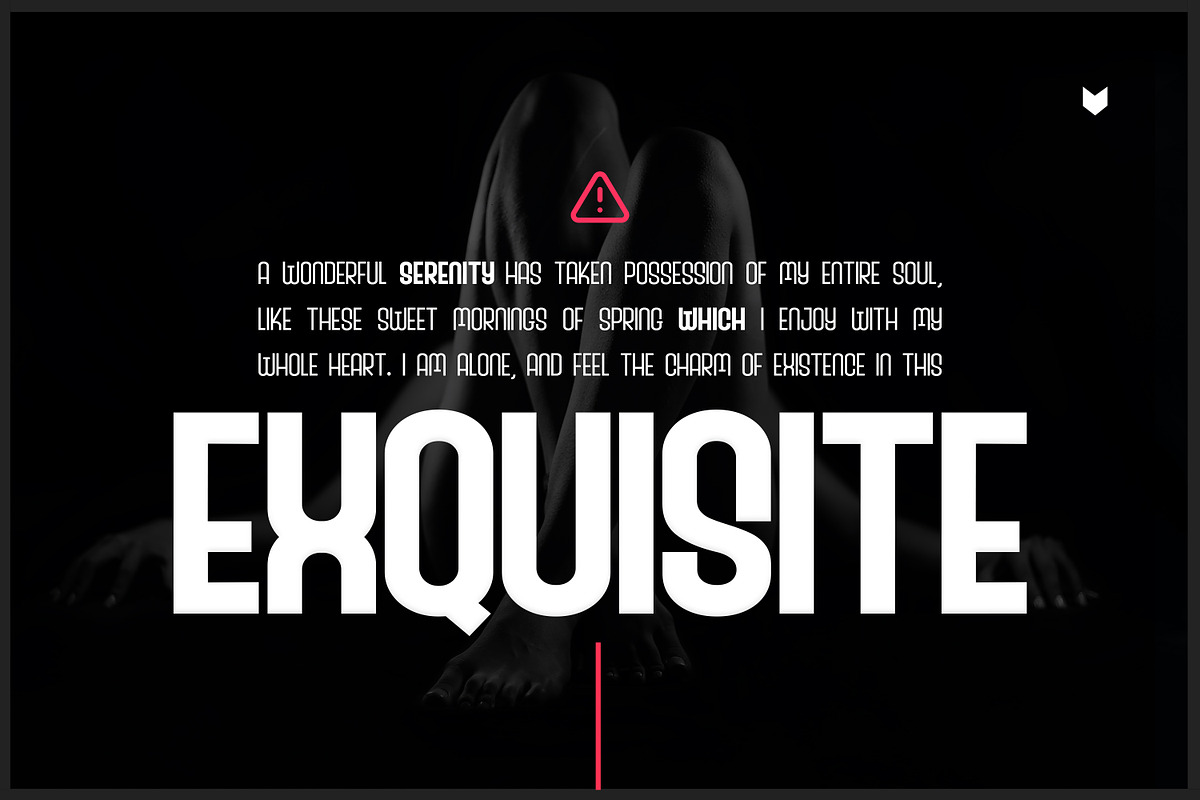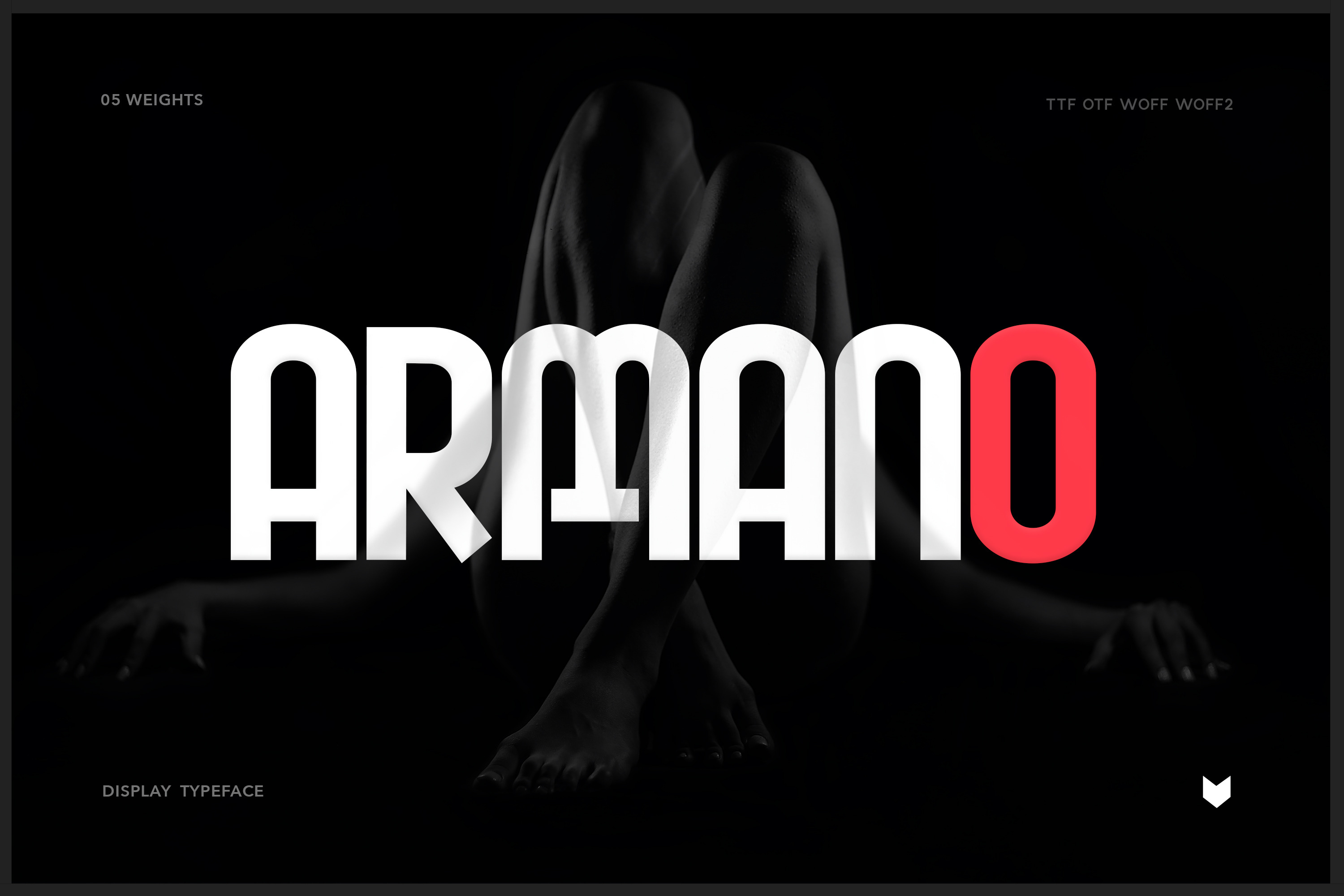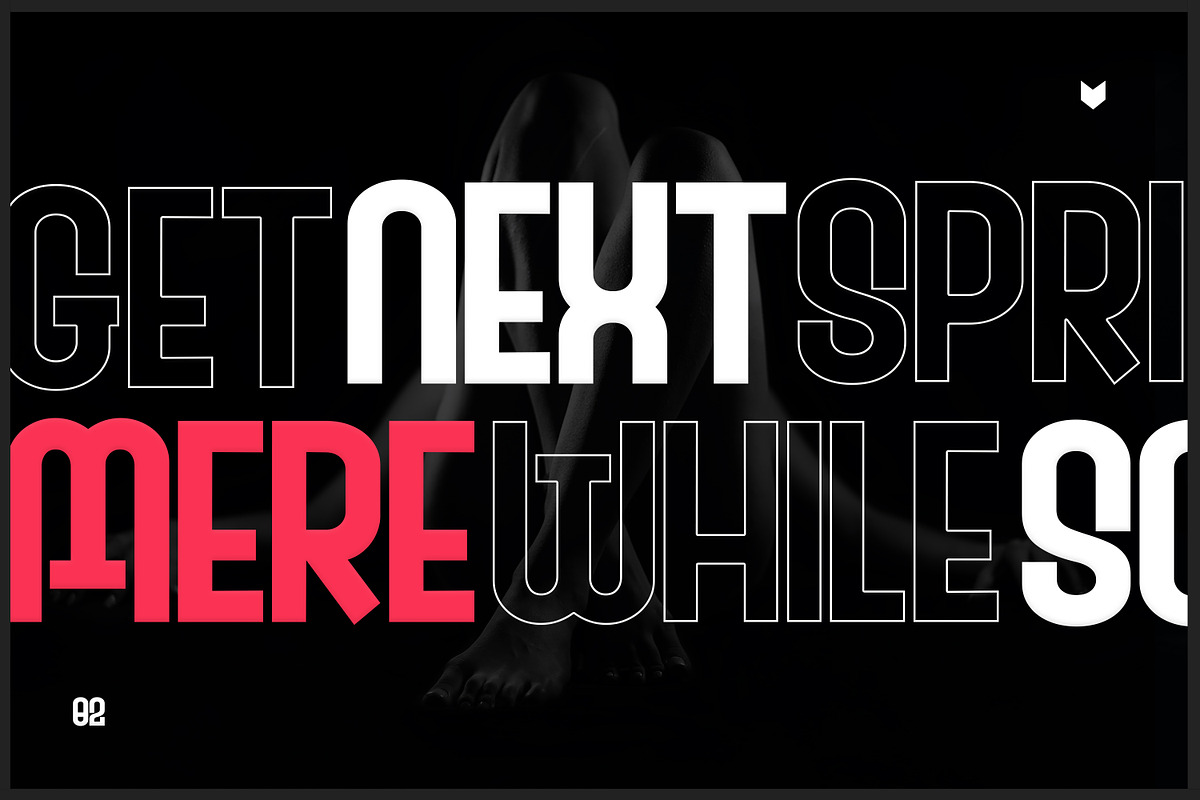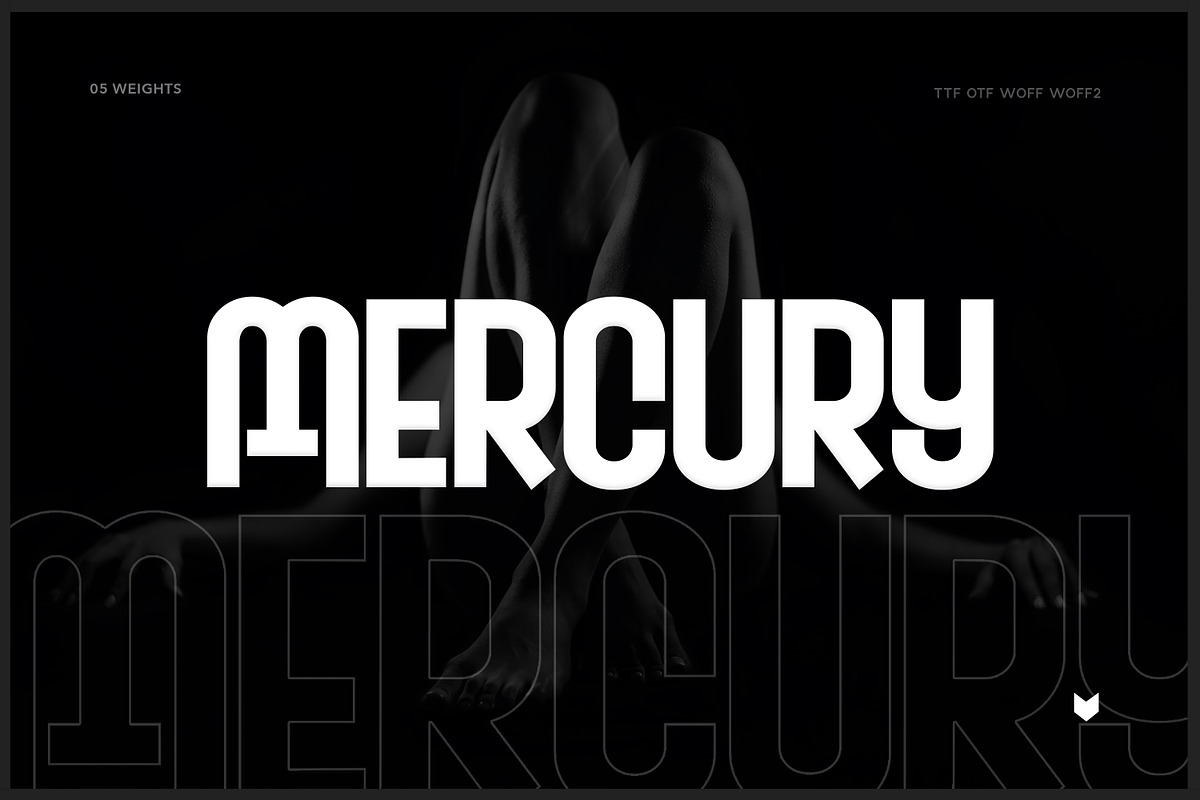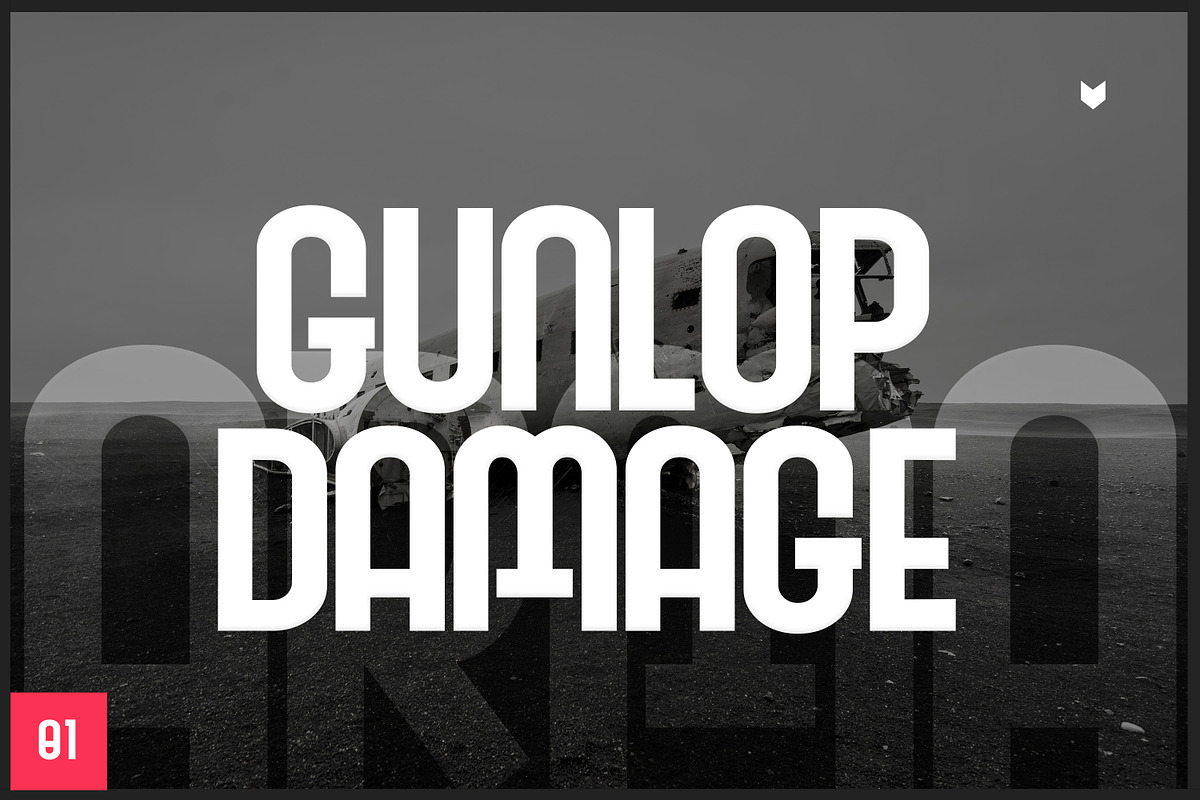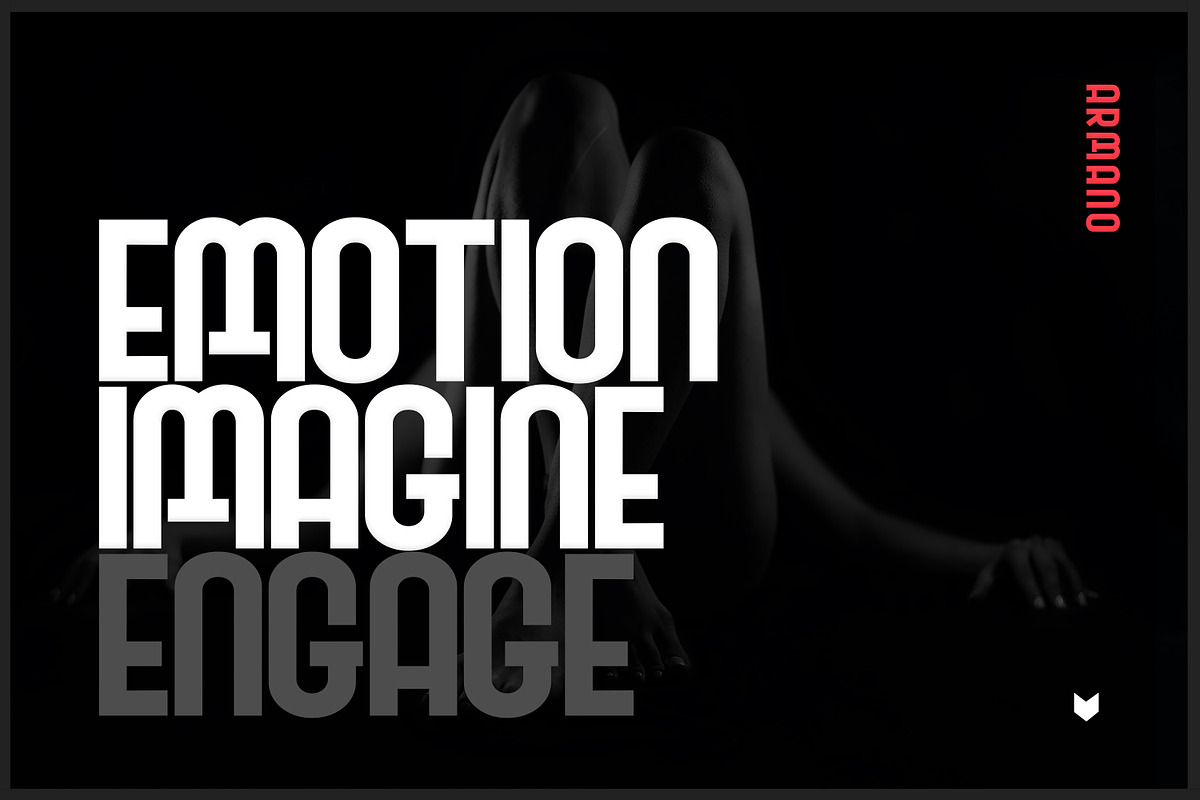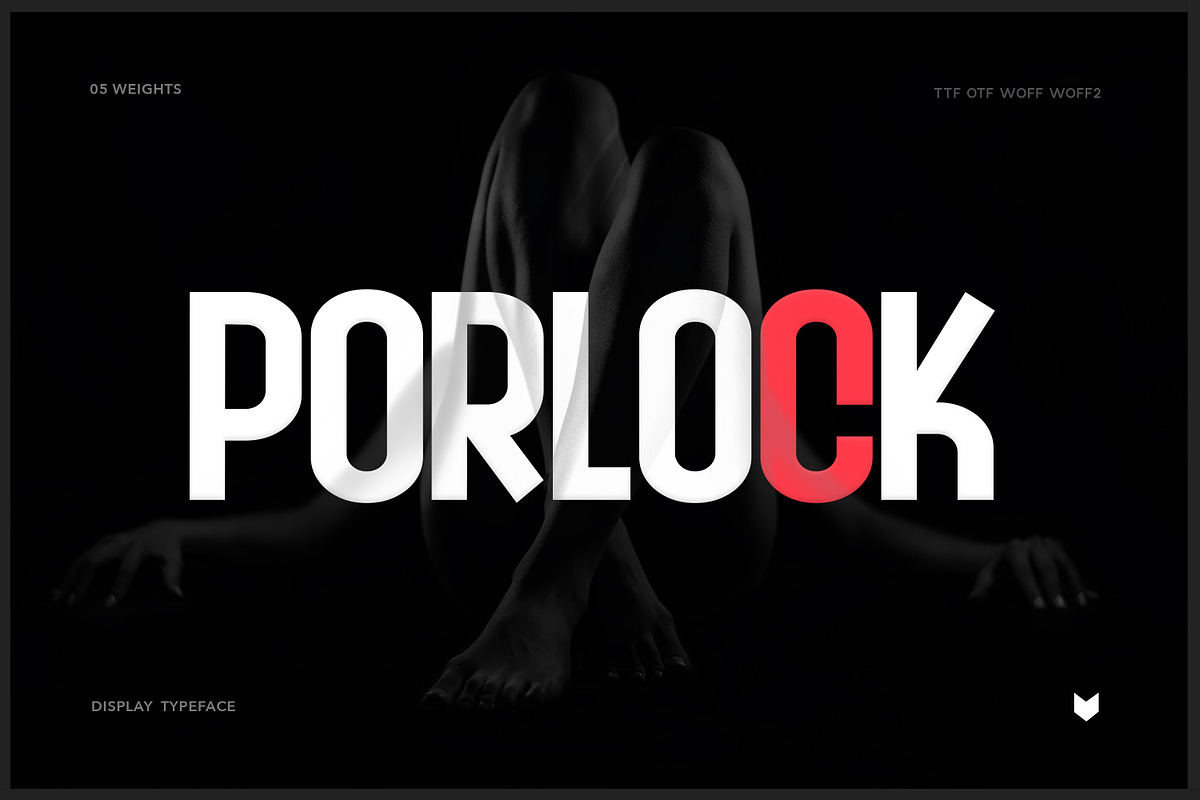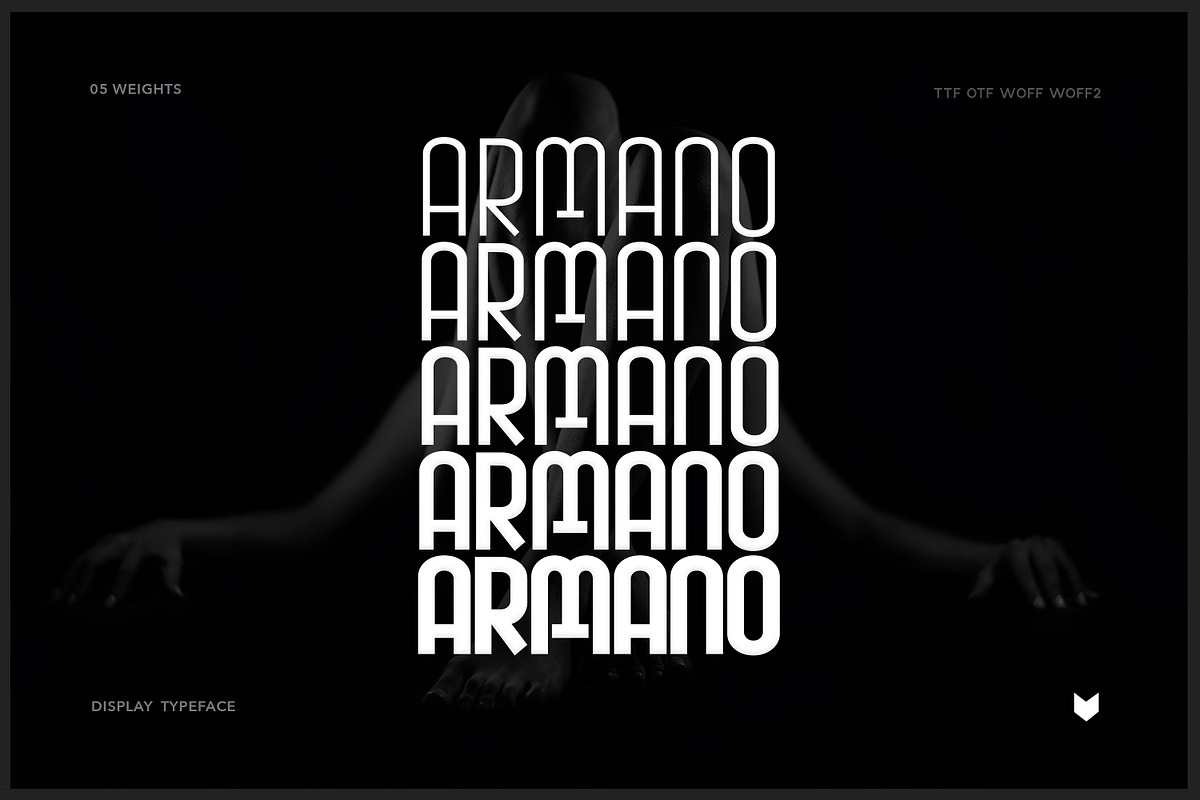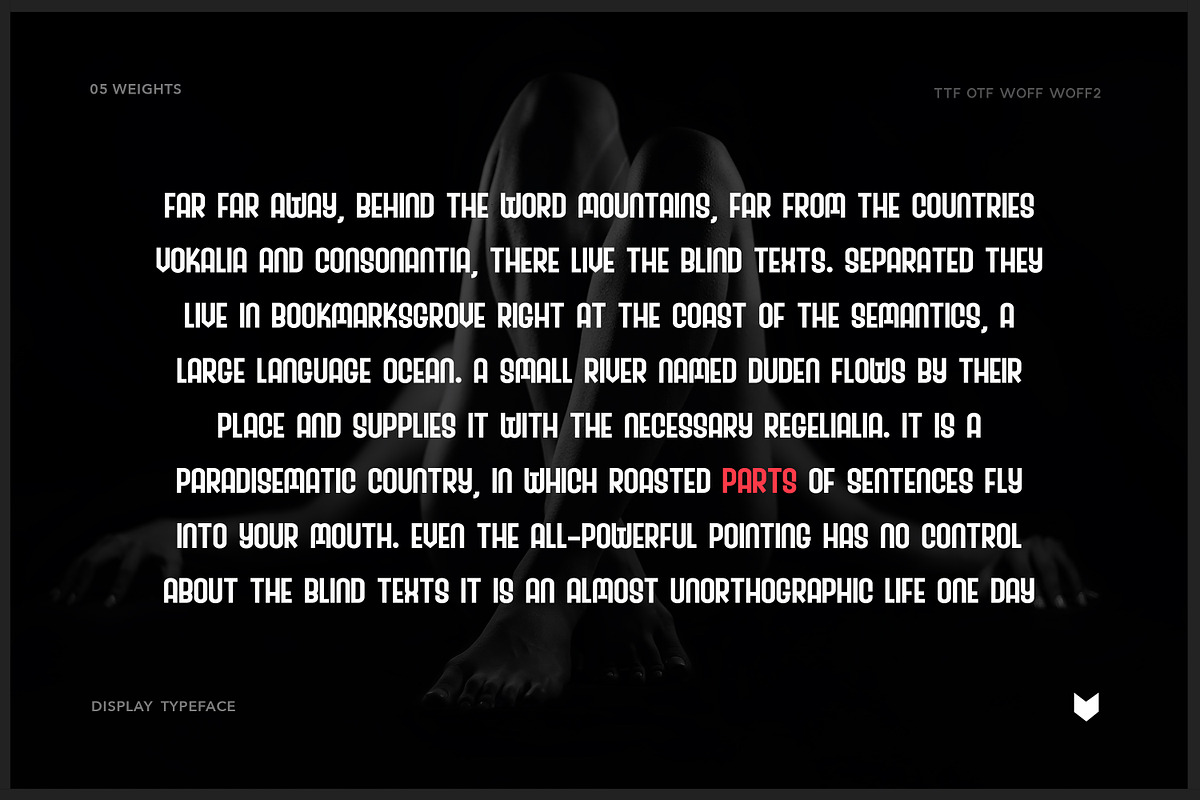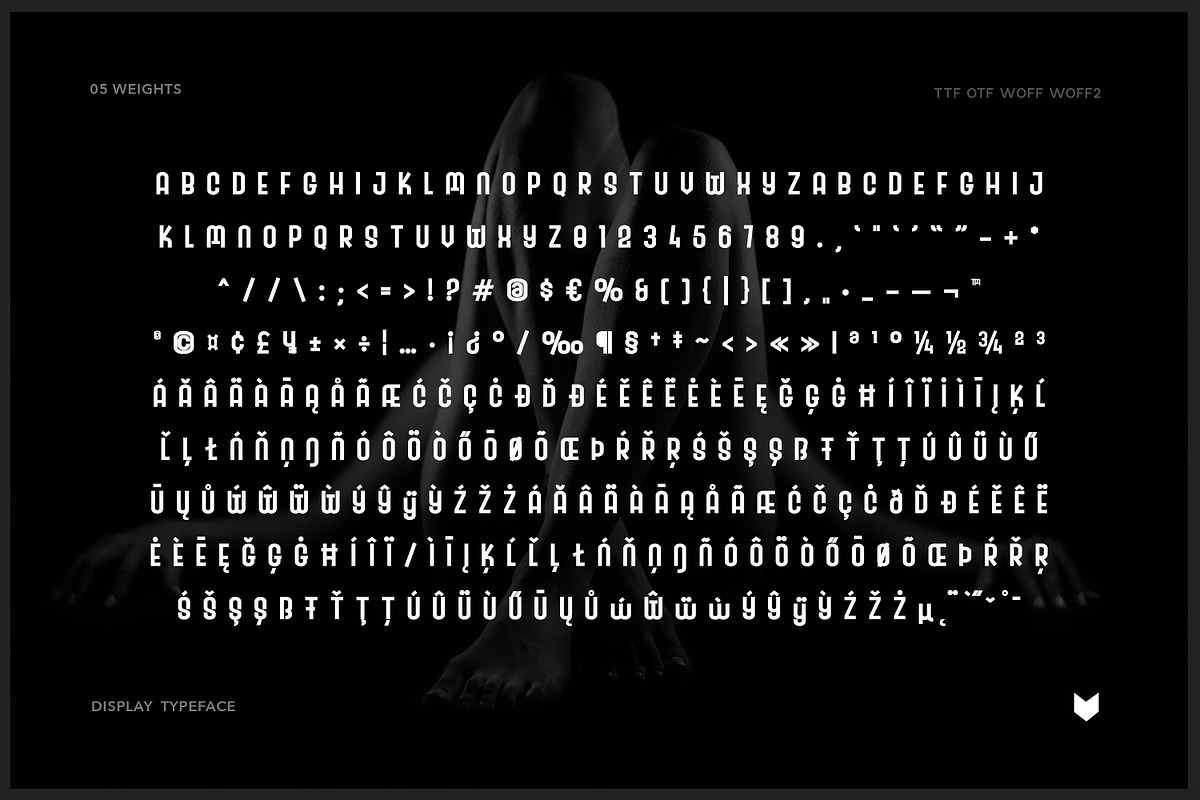
Armano Display Typeface
Armano Display is a Unique Modern Elegant Typeface with Web-fonts. It's a very versatile font that works great in large and small sizes. Armano Pro would perfect for branding, logos, headlines, Captions. or simply as a stylish text overlay to any background image. Strong capitals and a smooth, open lowercase are effective in a variety of applications. It's shown a clean, minimalist, warmth, quirky, yet still purposed to be versatile and easy to read.